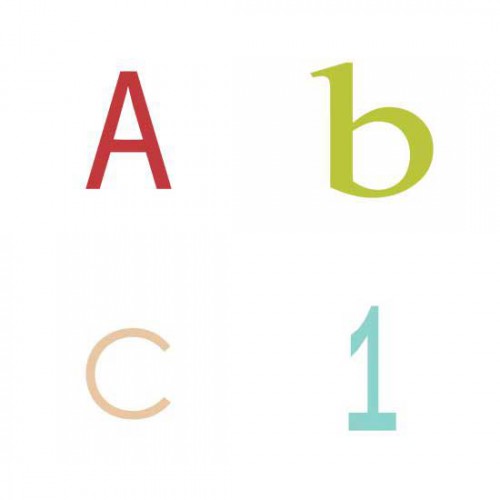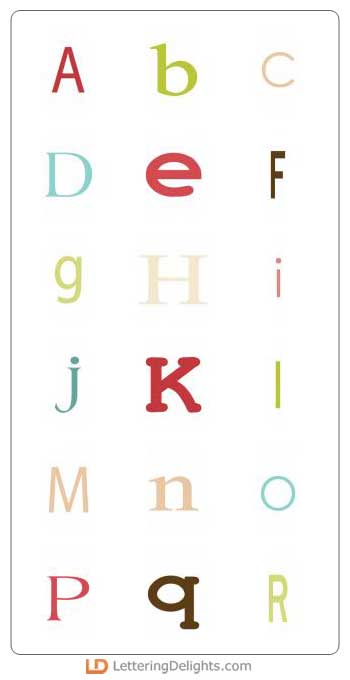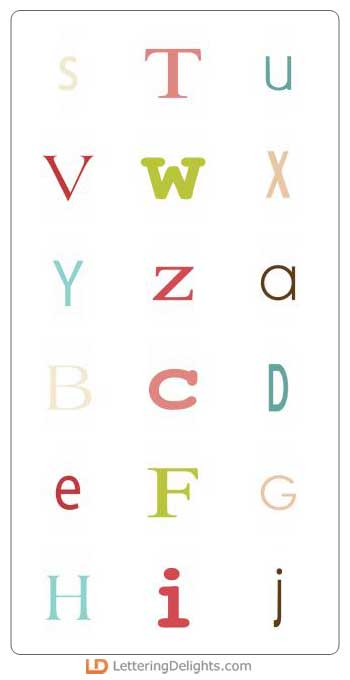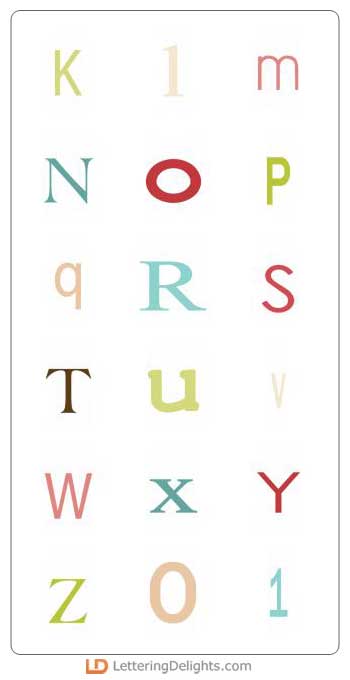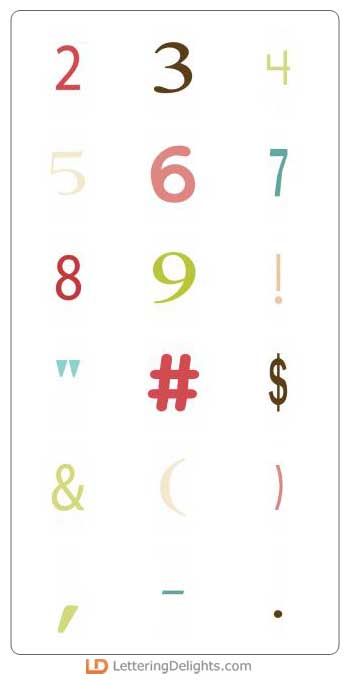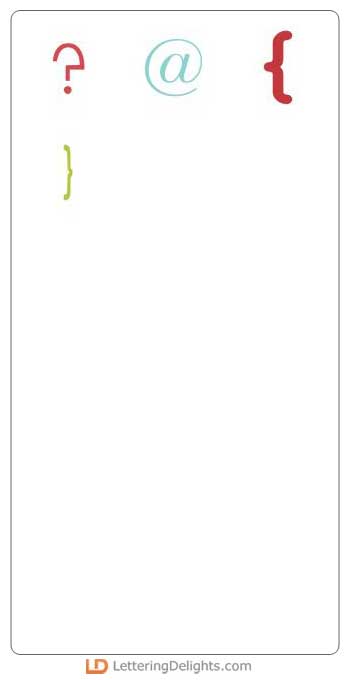
Just like all the elements in the Owl I Want for Christmas bundle, the Owlphabet is full of fun and color and personality...and 'hoo' doesn't want fun, color and personality on their creative projects?!